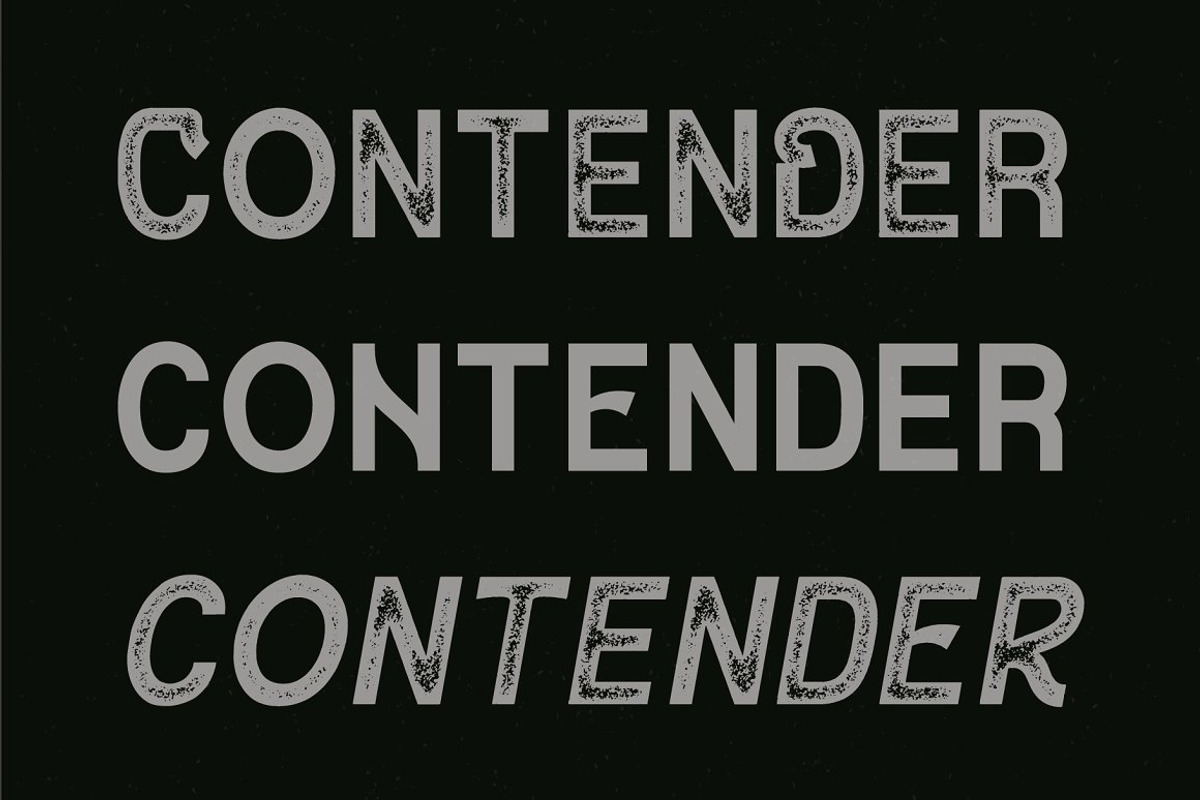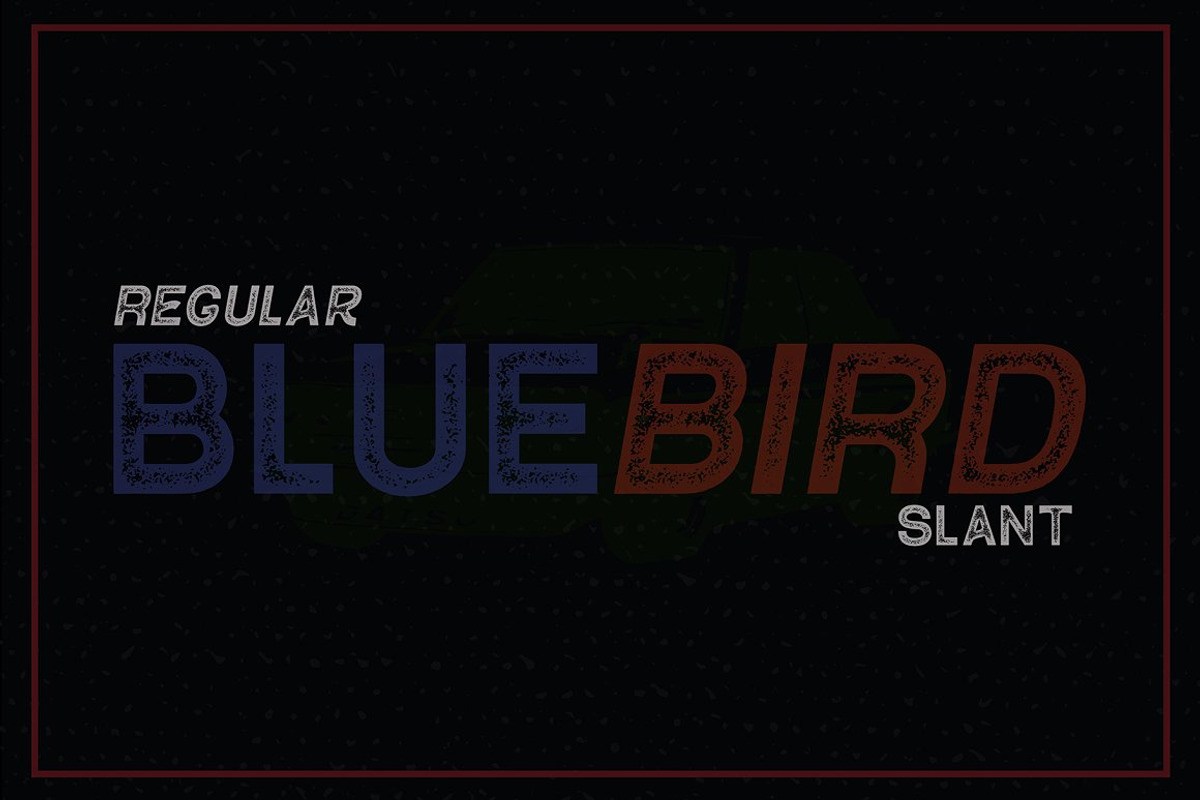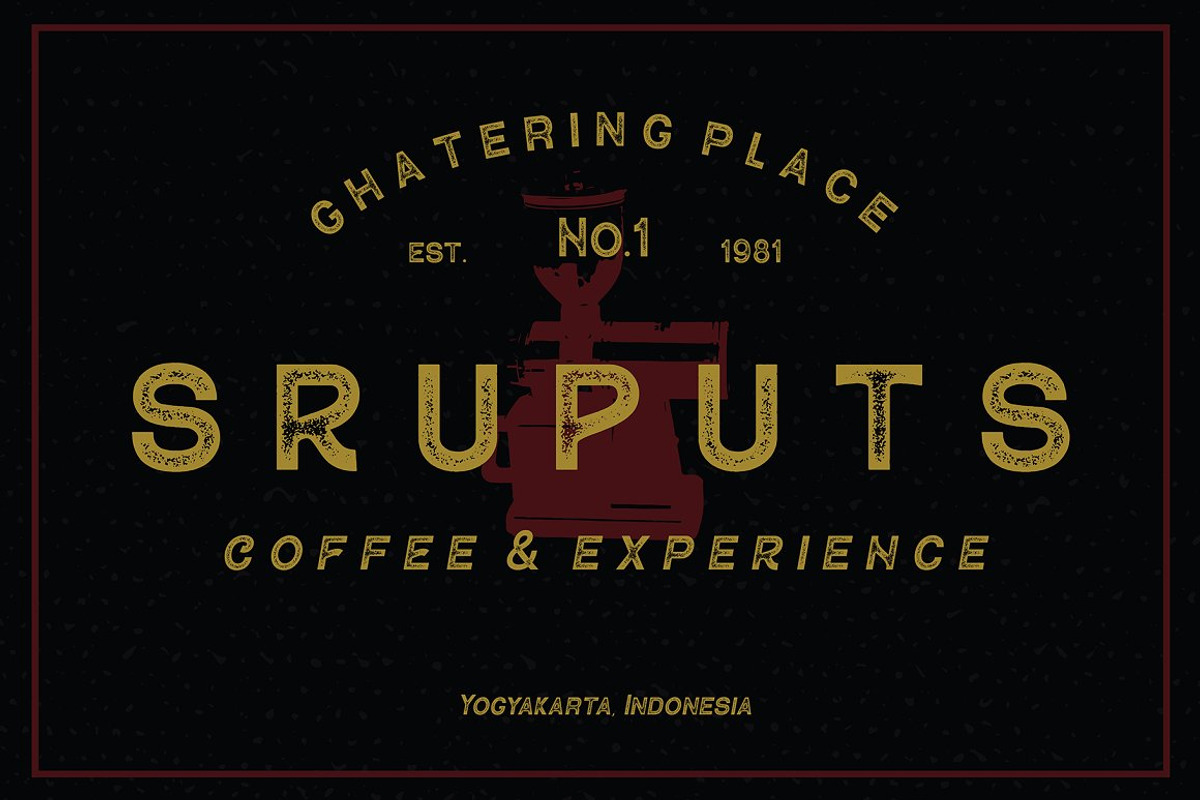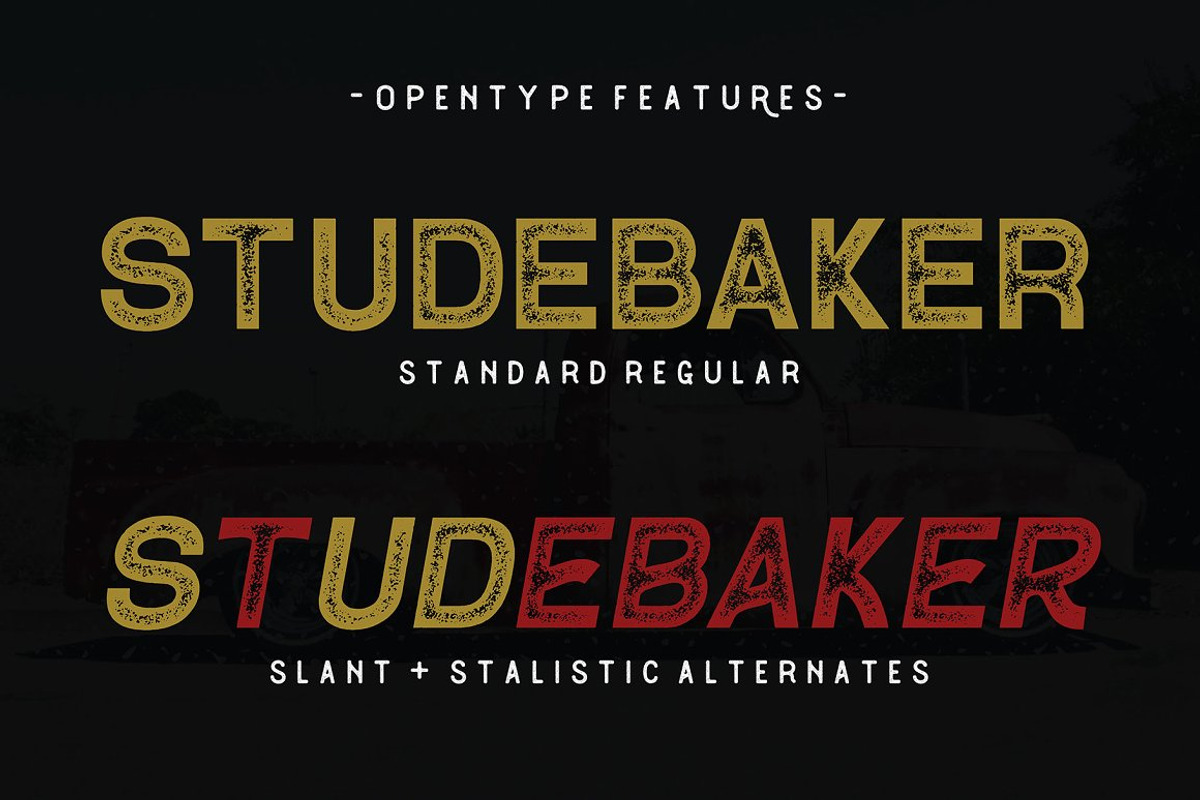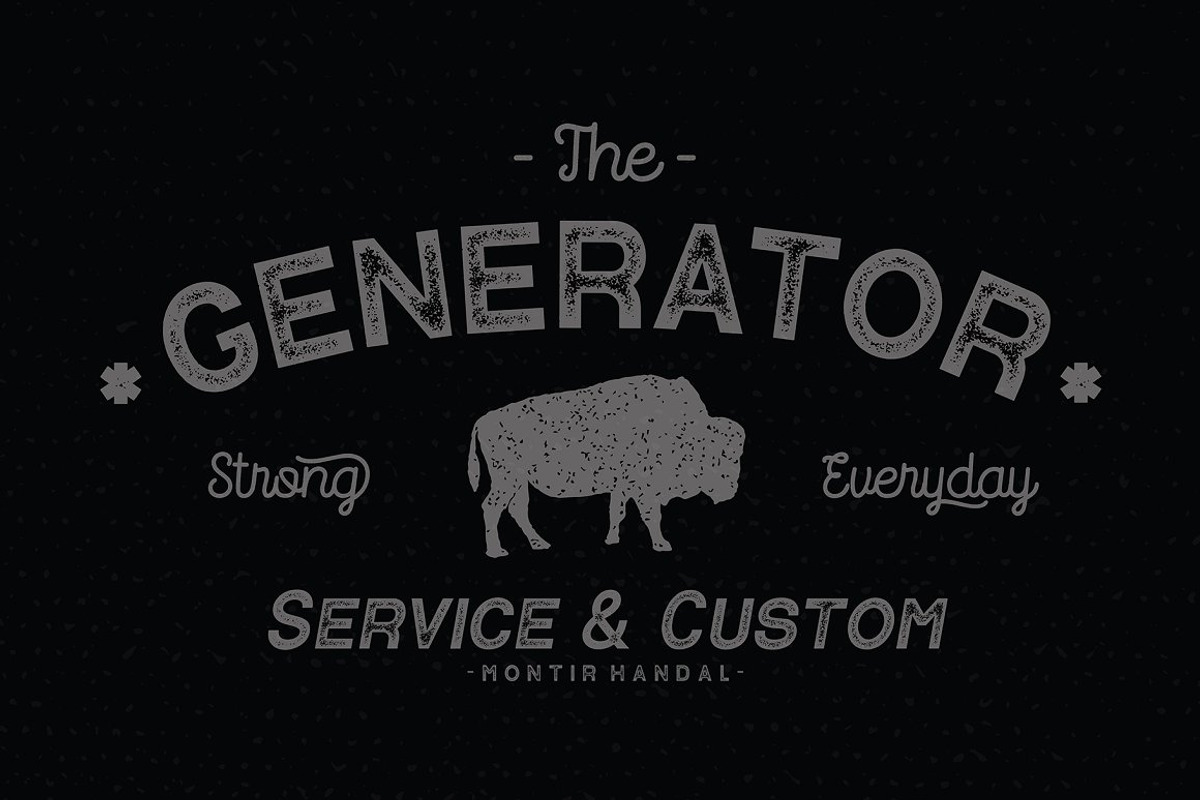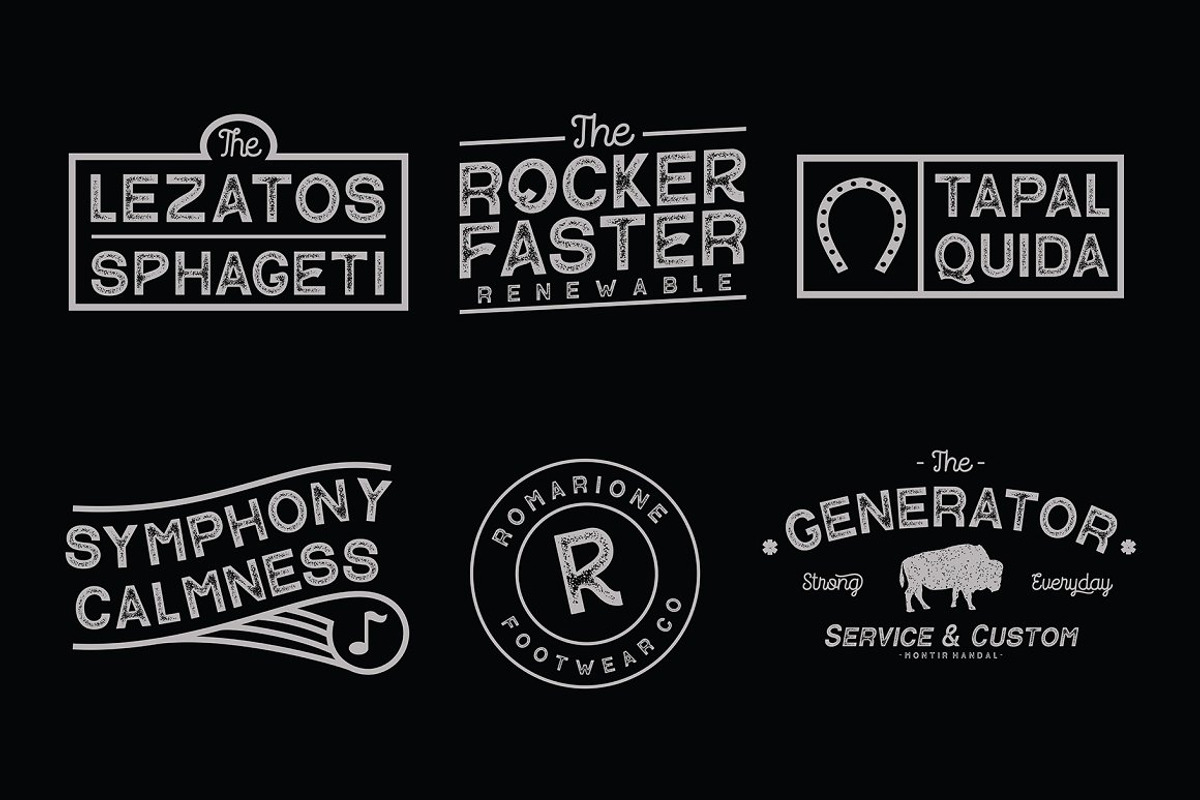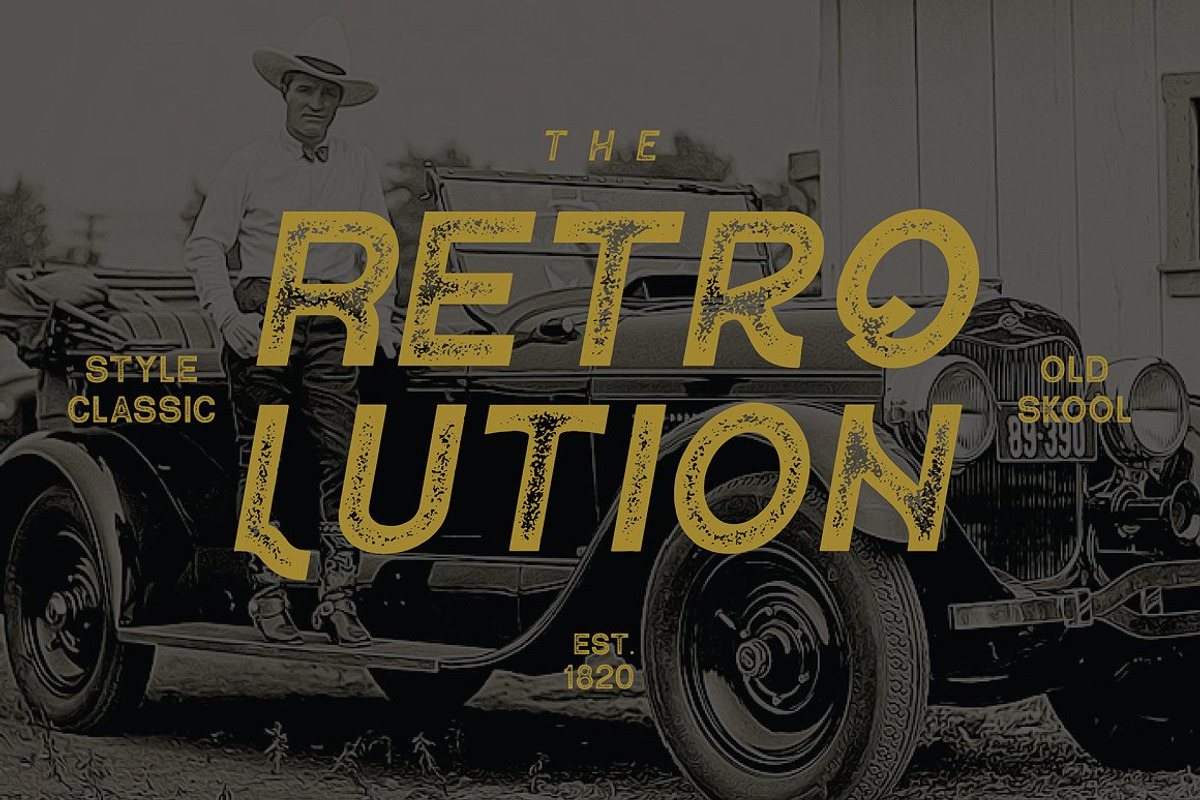
VT Contender - Vintage Display Font
Contender is a sans serif with 3 styles & stamp effect, nice applied in various products. Complete with multilingual characters, ligature and alternate. It is suitable for quote, clothing design, vintage logo, label, poster, packaging design and other designs.
- Complete with multilingual characters, ligature and alternate.